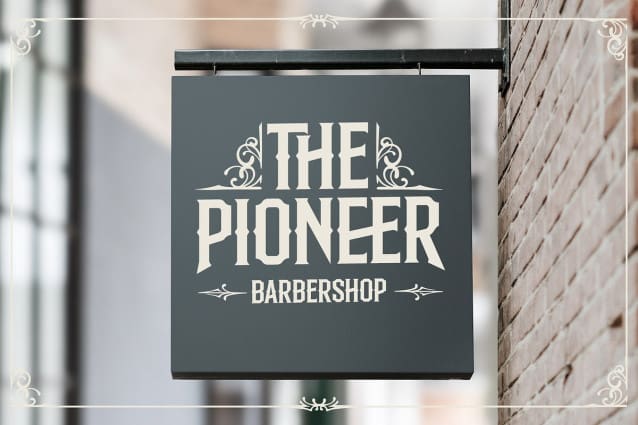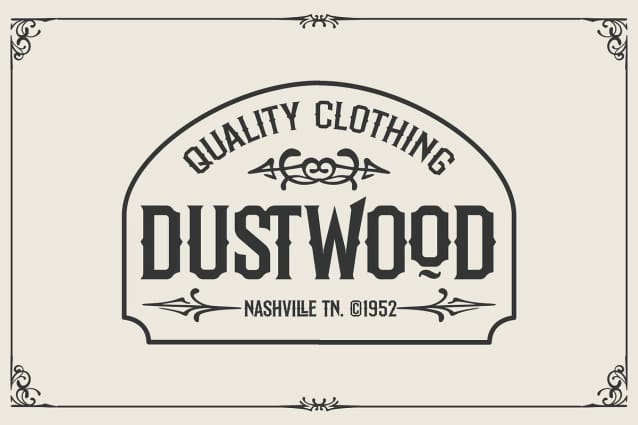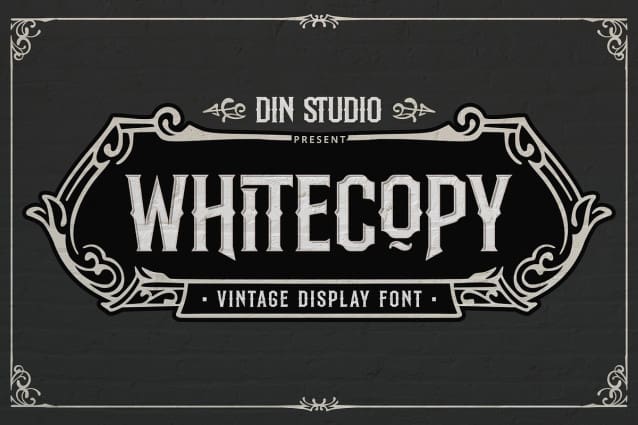
Whitecopy Vintage Font
Whitecopy Vintage Font – a vintage display font that blends boldness with classic charm. Crafted in uppercase with a substantial thickness, Whitecopy makes a powerful statement while maintaining an air of sophistication. The consistent letter proportions ensure a harmonious and cohesive look, while the subtly ornamented outline adds a touch of intricate detail, enhancing its vintage appeal. As an extra, this font gives ornaments.